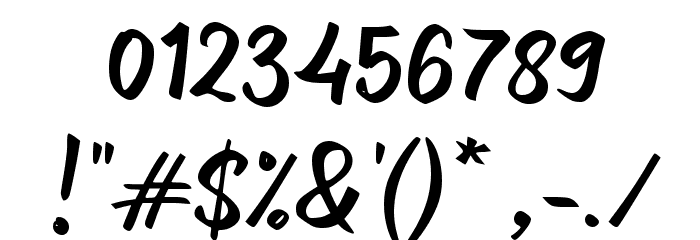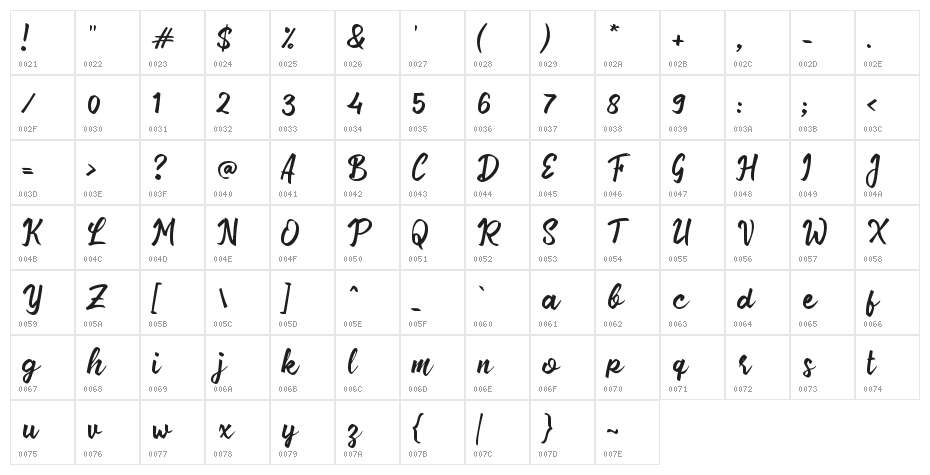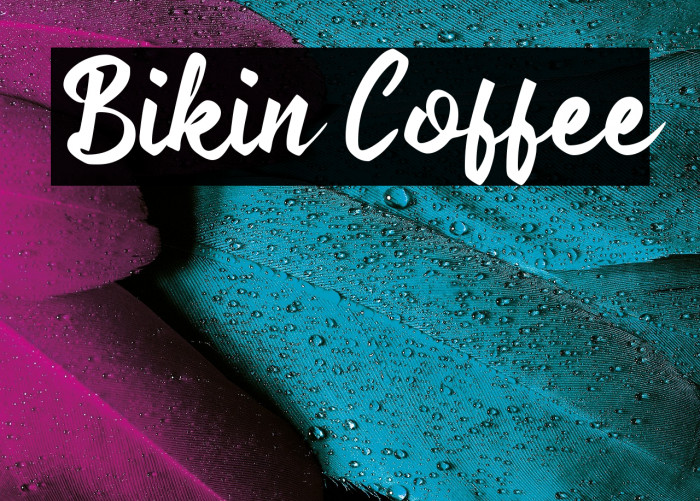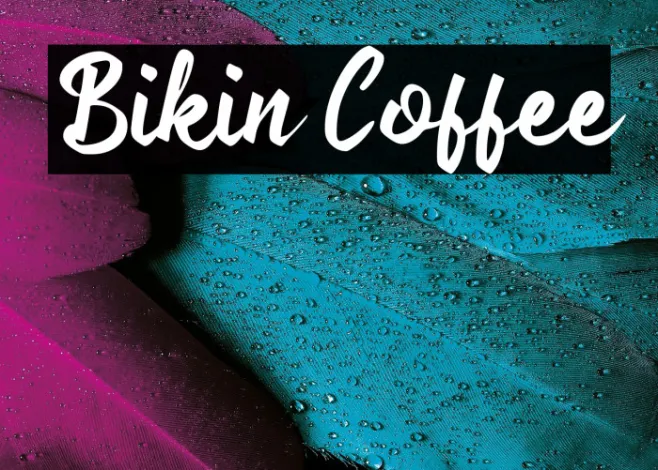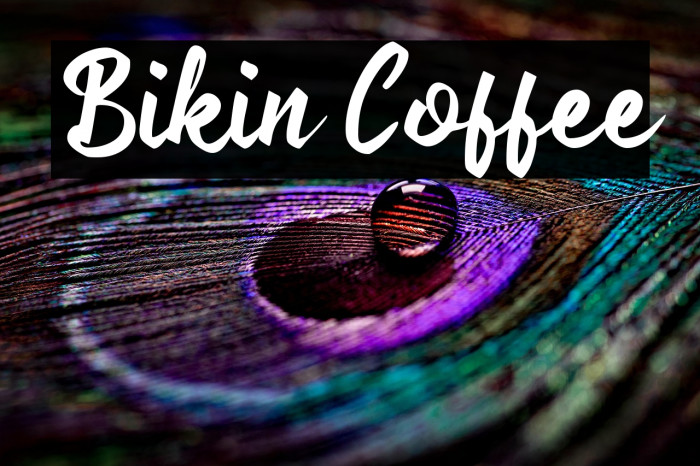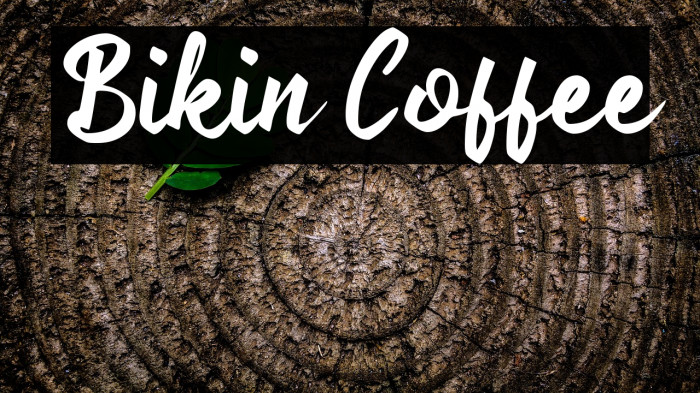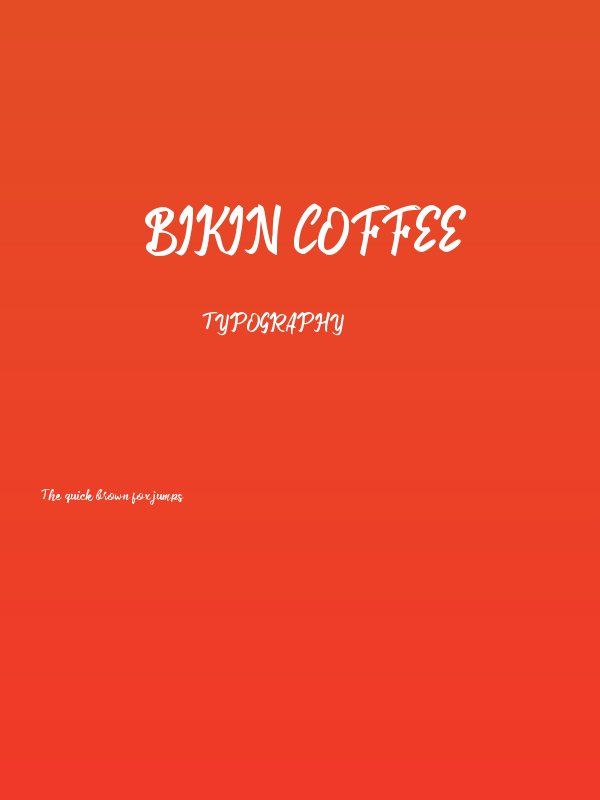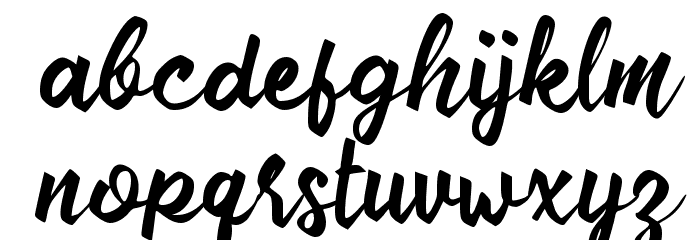
Bikin Coffee Font
Bikin Coffee Description
This font exudes a lively and dynamic character with its bold, cursive script style. The letters are crafted with a smooth, flowing motion, giving a sense of movement and energy. The uppercase letters are slightly larger and more pronounced, while the lowercase letters maintain a consistent rhythm. The numbers and special characters are designed to match the playful and expressive nature of the alphabet. The strokes are thick and confident, providing a strong visual impact. This font is ideal for projects that require a touch of elegance combined with a modern flair.